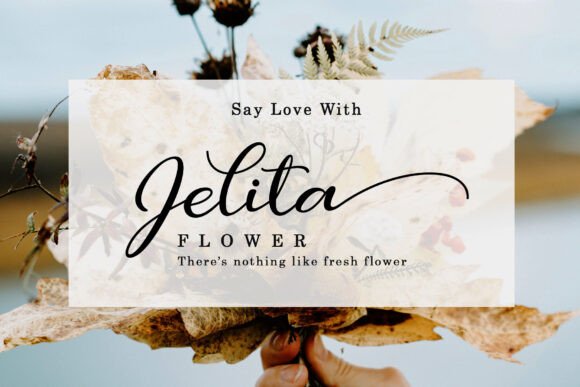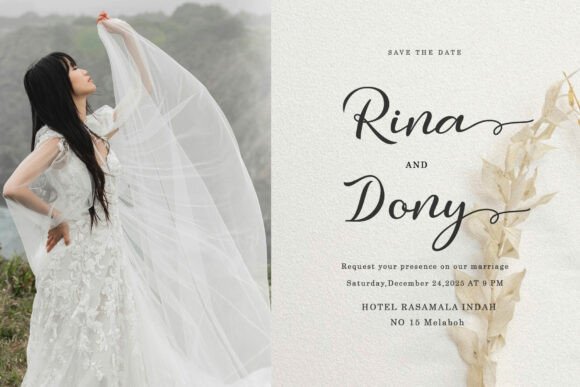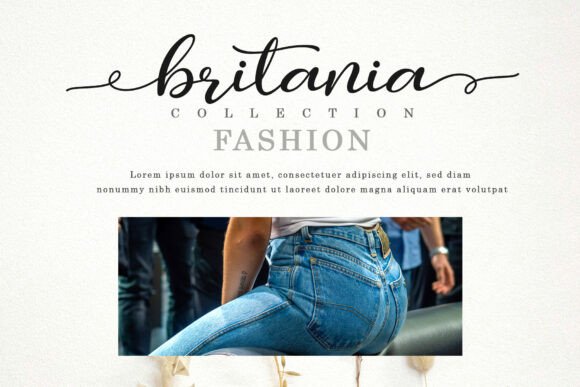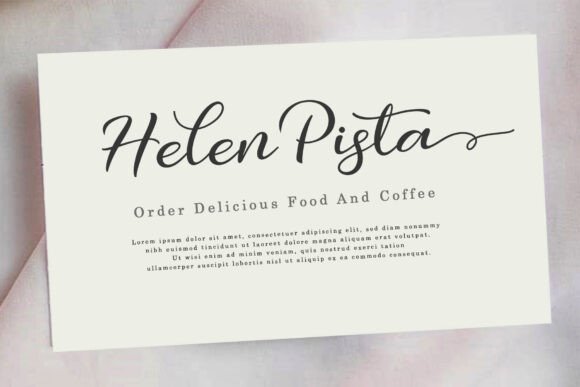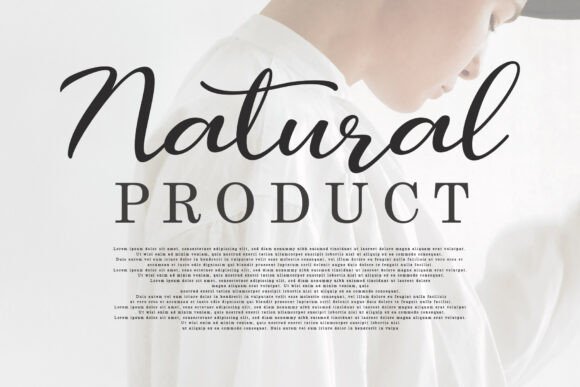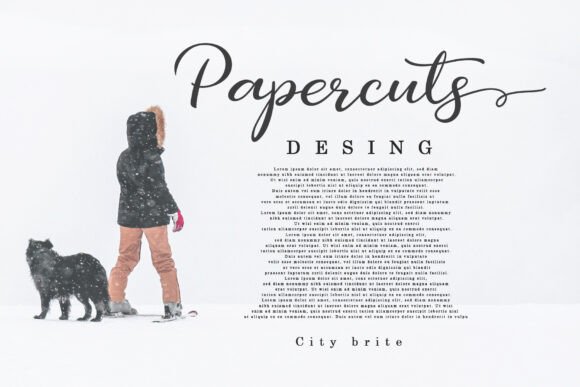
Introducing City Brite Font: Elevate Your Designs with a Stunning Handwritten Script
Are you a designer or crafter looking for a unique and elegant font to add a personal touch to your creations? Look no further than City Brite Font, a beautiful handwritten script font that is perfect for a variety of design projects. In this article, we’ll explore the features and benefits of City Brite Font, and show you how it can elevate your designs to the next level.
What is City Brite Font?
City Brite Font is a carefully crafted handwritten script font that is designed to look natural and stunning. Its elegant and flowing lines make it perfect for use on wedding invitations, thank you cards, quotes, greeting cards, logos, business cards, and any other design that requires a cool handwritten touch. With City Brite Font, you can add a touch of personality and whimsy to your designs, making them stand out from the crowd.
Key Features of City Brite Font
So, what makes City Brite Font so special? Here are just a few of its key features:
- Handwritten script font: City Brite Font is a genuine handwritten script font, giving it a personal and unique feel.
- Natural and stunning: City Brite Font is designed to look natural and stunning, making it perfect for a variety of design projects.
- Versatile: City Brite Font can be used on a wide range of design projects, from wedding invitations and greeting cards to logos and business cards.
Benefits of Using City Brite Font
So, why should you choose City Brite Font for your designs? Here are just a few benefits of using this beautiful font:
- Add a personal touch: City Brite Font allows you to add a personal touch to your designs, making them more unique and engaging.
- Elegant and sophisticated: City Brite Font has an elegant and sophisticated feel, making it perfect for designs that require a high level of professionalism.
How to Use City Brite Font